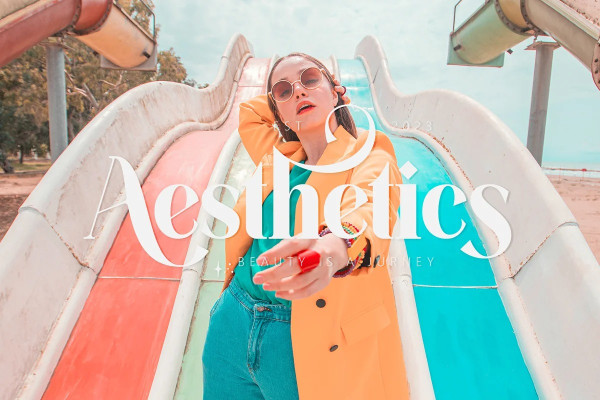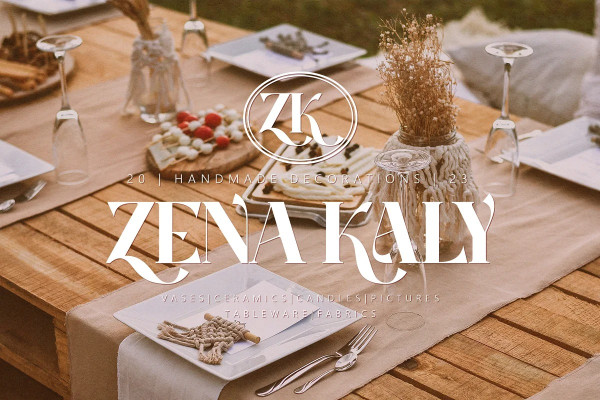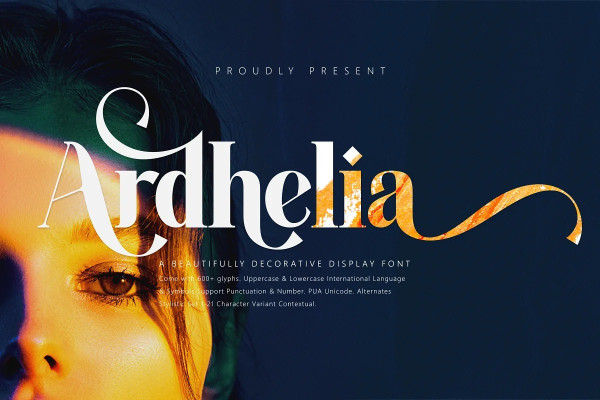
Ardhelia Font
Ardhelia Font is a beautiful display font that is suitable for branding, wedding invitations, greeting cards, posters, name card, quotes, blog header, logo, fashion, apparel, letter, stationery and other projects.
Ardhelia come with 500+ glyphs. The alternative characters were divided into several Open Type features such as Swash, Stylistic Sets, Stylistic Alternates, Contextual Alternates. The Open Type features can be accessed by using Open Type programs such as Adobe Illustrator, Adobe InDesign, Adobe Photoshop Corel Draw X version, And Microsoft Word. And this Font has given PUA unicode (specially coded fonts). so that all the alternate characters can easily be accessed in full by a craftsman or designer.
Ardhelia : Uppercase ( Four style variations ) & Lowercase International Language & Symbols Support Punctuation & Number PUA Unicode Range Standard Stylistic Alternates Stylistic Set 1-21 Character Variant Contextual.